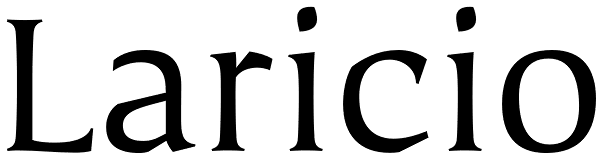
Laricio
Laricio is the italian name of the larch tree. This typeface has naturalist and renaissance connotations. The design of the stems is organic. The general feeling is slightly prickling like the foliage of conifers. In french, the word "fût" qualifies...